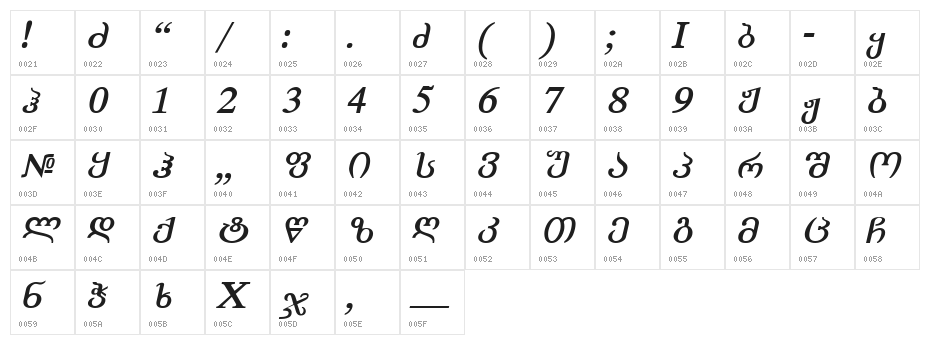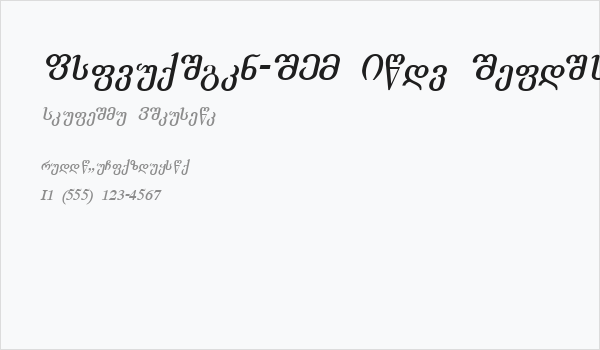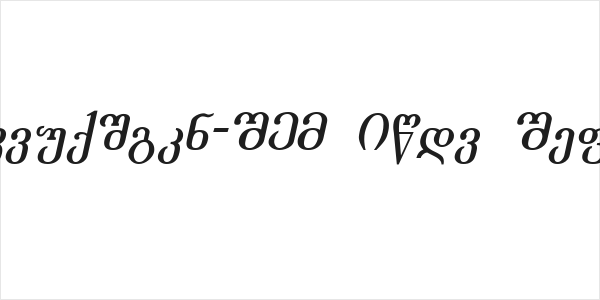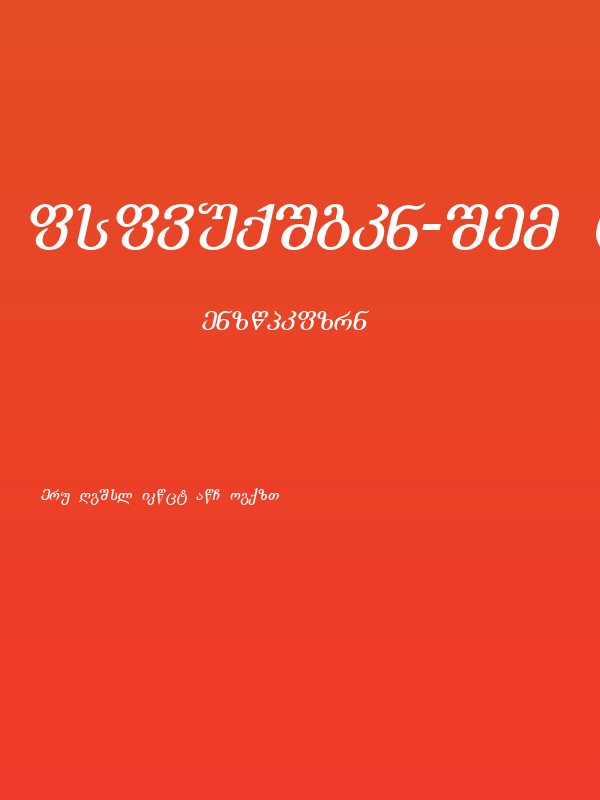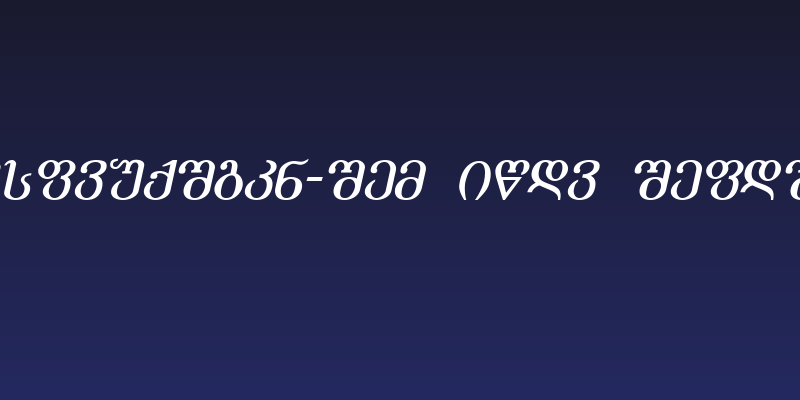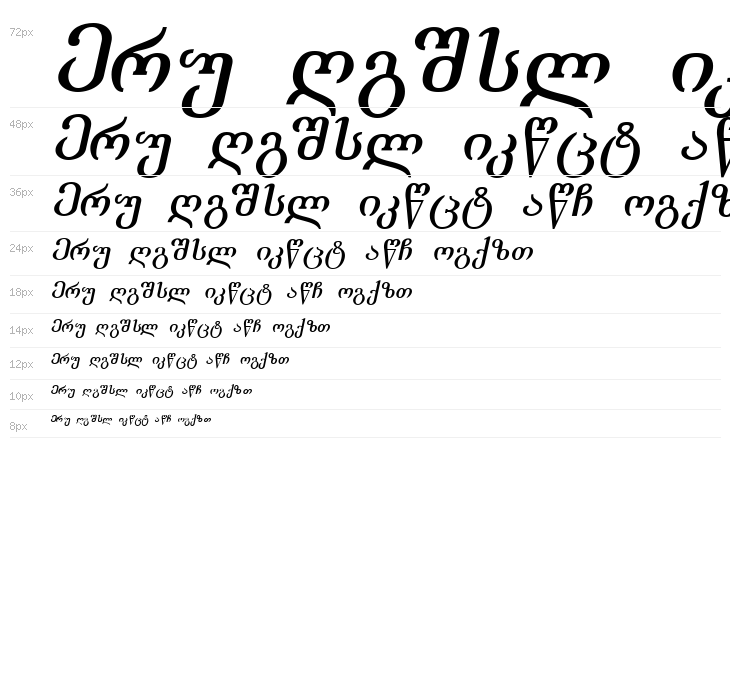
Academiury-ITV Bold Italic Font
Academiury-ITV Bold Italic Description
This font features a bold and italic style with a distinct calligraphic influence, characterized by its flowing curves and elegant serifs. The letters are designed with a high contrast between thick and thin strokes, giving it a dynamic and sophisticated appearance. The numerals and special characters maintain the same stylistic elements, ensuring consistency across all glyphs. The overall design is both classic and decorative, making it suitable for formal and artistic applications.
Overall StyleClassic, Decorative
Use CaseLogos, Headlines, Invitations
Proposed ProjectsIdeal for wedding invitations, formal event programs, luxury branding, and artistic posters.